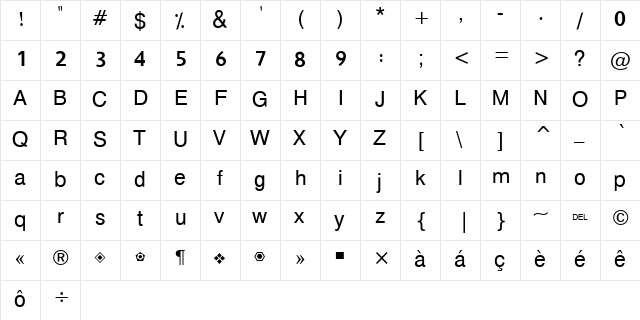
Hacen Samra Lt Regular
| Foundry | Muhammad Hacen |
| Designer | Muhammad Hacen |
Design Context for Hacen Samra Lt Typeface
Hacen Samra Lt offers clean, dependable letterforms without strong stylistic allegiance, making it a practical choice for designers who need flexibility. The delicate stroke weight brings airiness and refinement to layouts.
Pro Tip: Pair Hacen Samra Lt with a font of contrasting weight or personality to build a more expressive typographic hierarchy.